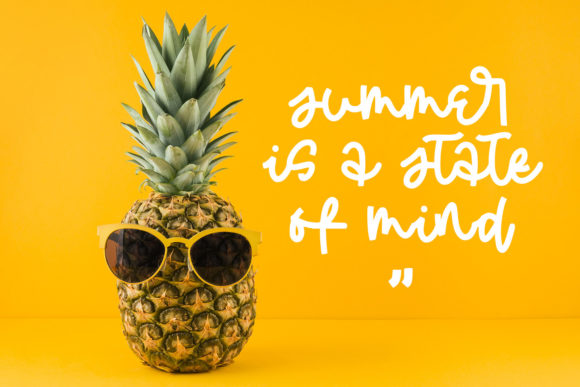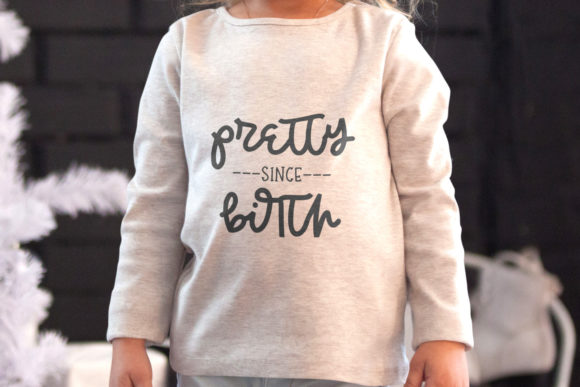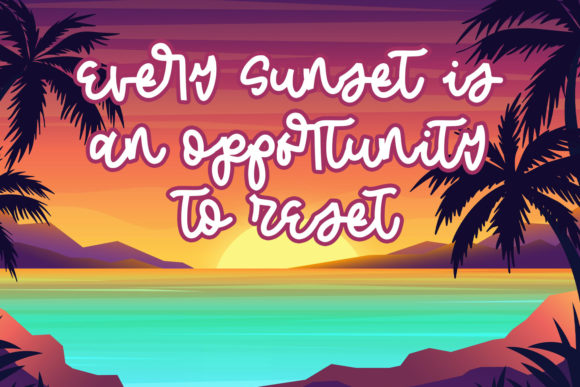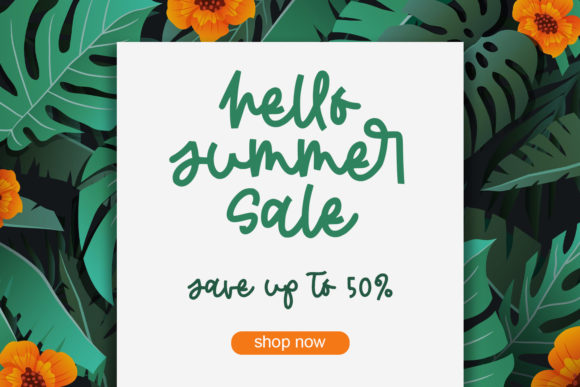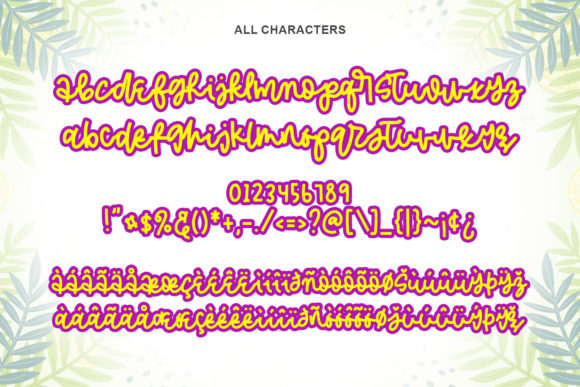
Fresh Wumpa Font
Fresh Wumpa is a cool and whimsical handwritten font. Its informal style and casual vibe will make this font a go-to choice for each of the creations that require a relaxed touch.